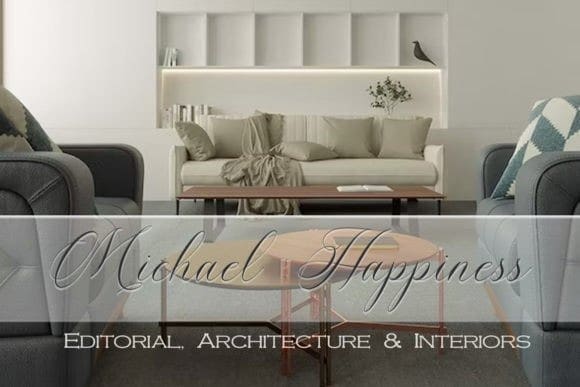
Leva Blackshear Font
Leva Blackshear Font, is a sleek, modern, and graceful script font. Fall in love with its ravishing style and use it to create beautiful designs.